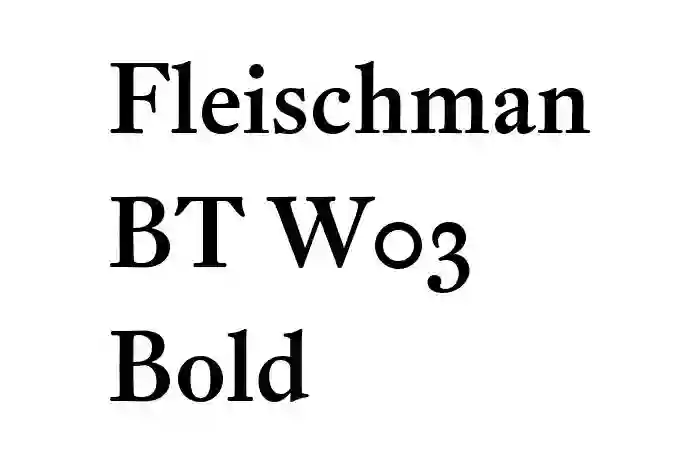
Fleischman BT Font is an exceptional choice for a wide array of design applications that demand a blend of historical elegance and superb readability. Imagine it gracing the pages of finely printed books, lending an air of authenticity to historical documents, or providing a sophisticated and clear body text for literary journals. Its classic design also makes it ideal for high-end branding that seeks a timeless appeal, invitations with a traditional flair, and any project where a sense of heritage and meticulous craftsmanship is desired. This font excels in environments that value both aesthetic beauty and supreme clarity in extended reading.
What makes Fleischman BT Font so exciting is its faithful revival of the work of Joan Michaël Fleischman, an 18th-century Dutch punchcutter renowned for the precision and beauty of his types. This font embodies a delicate balance of robust construction and refined detailing, making it incredibly legible even in small sizes. The carefully crafted serifs, balanced proportions, and subtle variations in stroke width contribute to an overall sense of artisanal quality and intellectual authority. It’s a typeface that speaks with a quiet dignity, making your content feel both established and effortlessly elegant, bridging the gap between historical accuracy and contemporary usability.
The Fleischman BT Font family, while rooted in a classic design, offers practical versatility for various design needs. You'll typically find standard weights such as Regular, Italic, Bold, and Bold Italic. This core selection provides designers with the essential tools to create clear visual hierarchies and add emphasis where needed, without overwhelming the reader. Each weight maintains the consistent, refined forms and exceptional legibility that define Fleischman BT Font, ensuring a cohesive and distinguished aesthetic across all your projects. Discover its timeless charm today – Fleischman BT Font Free Download is available now!